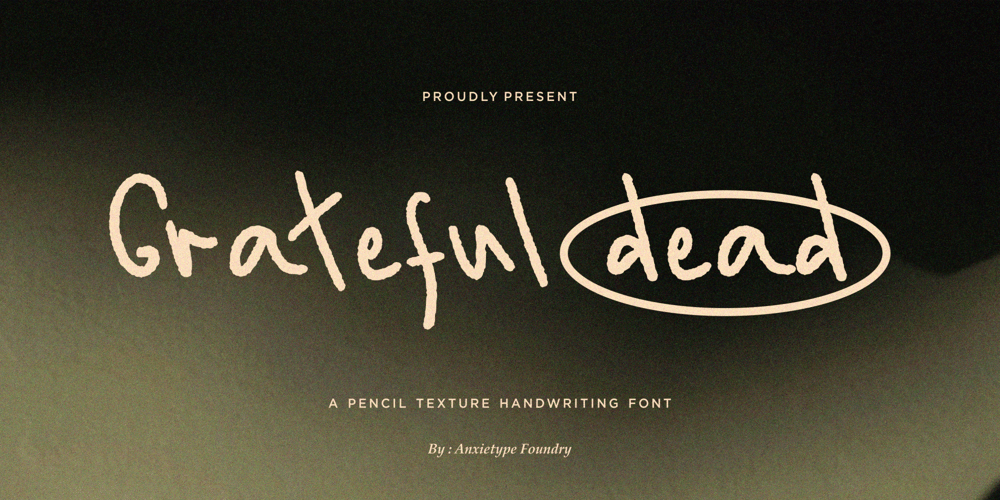
Grateful dead Font Family was designed by Annas Rifky Anhar and published by Anxietype Foundry. Grateful dead contains 1 styles and family package options. Introducing “Grateful Dead” an exquisitely crafted handwritten font by Anxietype Foundry that flawlessly imitates the authenticity of pencil brush strokes. As evocative as it is versatile, it effortlessly traces the charm of vintage handwriting. Whether you’re looking to capture the candid feel of penned song lyrics, stamp your brand with a memorable identity, or ascribe a nostalgic ambiance to a craft project, Grateful Dead is your passport to a bygone era of handwritten authenticity. Experience the allure of organic and timeless typography with this distinctive, yet universally adaptable font.